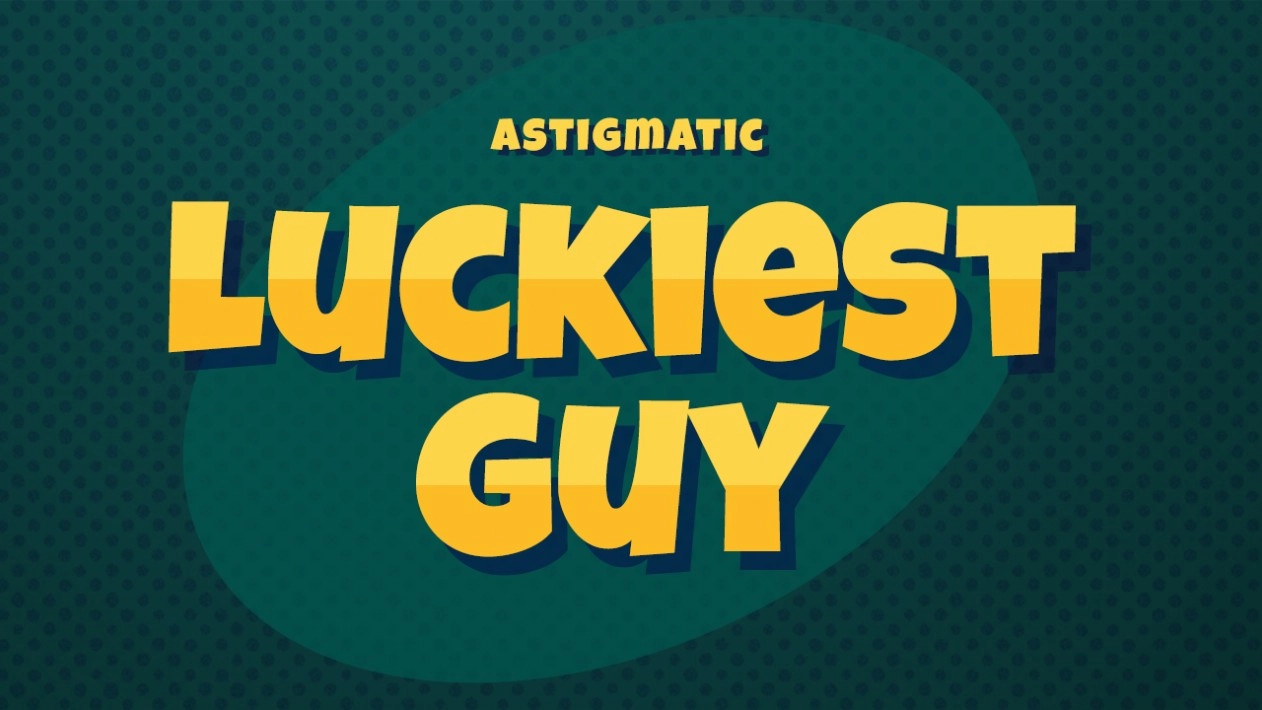
The 10 best gaming fonts
Whether you're developing your own indie games or creating graphic or web design work around a gaming theme, the best game fonts can provide a quick and easy way to set the right tone.
Of course, if you simply want your text to be legible, there's no reason you can't use a normal font like Helvetica (or one of these free fonts to get you started). But if you're trying to convey a specific look, whether that be retro arcade or sleek and futuristic, a more stylised typeface can elevate your project's visual appeal and enhance its overall atmosphere.
To help you get started, we've rounded up the 10 best game fonts, each of which can bring its unique character to your work. Some major in legibility (they must have followed our guide to kerning), while some are more about evoking a particular atmosphere, but all of these fonts work well in both game-themes designs and games themselves.
1. Russo One
Designed by Jovanny Lemonad, Russo One is a bold and stylish sans-serif that's nicely legible and exudes modernity and strength. Its clean lines and sturdy structure make it an excellent choice for game logos, menu titles, and in-game headers.
This font's versatility enables it to fit seamlessly into various gaming genres, from action-packed shooters to strategy games. Developers working on games with a contemporary or futuristic setting will find Russo One particularly appealing, as it conveys a sense of technological advancement and sleek design.
More generally, Russo One's readability at different sizes ensures that it performs well both in-game and in promotional materials. Plus its support for multiple languages, including Cyrillic, makes it ideal for games and game-related designs with international releases.
02. Posterama
Created by Linotype, Jim Ford's Posterama is a quirky-looking typeface family that's suitable for a wide range of gaming projects, from retro-inspired indie games to AAA titles with complex narratives.
With its 63 fonts spanning nine distinct families, Posterama provides designers and game developers with a wealth of options to create unique visual identities. Posterama's different variants, such as Posterama 1984 and Posterama 2001, can be used to evoke specific time periods or aesthetic styles within games.
With all that in mind, this font family is particularly valuable for developers working on games with multiple timelines or those seeking to create a strong, cohesive visual brand across different game elements and marketing materials.
03. Consolas
Designed by Luc(as) de Groot for Microsoft, Consolas is a monospaced font that has become a favourite among developers and gamers alike. Its clean, readable design makes it an excellent choice for in-game text, especially in games that involve coding elements or terminal-style interfaces.
Consolas particularly shines in strategy games, simulation titles, and any other game that requires players to read large amounts of text. And the font's support for various OpenType layout features enhances its versatility, allowing for creative use in user interfaces and game menus.
Developers working on games with a technical or scientific theme will find Consolas especially fitting, too, as it conveys a sense of precision and clarity.
04. Droid Sans
Created by Steve Matteson of Ascender Corporation, Droid Sans is a humanist sans-serif typeface originally designed for the Android mobile platform. And this optimised readability on small screens makes it an obvious choice for mobile game developers.
The font's neutral yet friendly appearance allows it to adapt to various game genres, from casual puzzle games to more complex RPGs.
Droid Sans' open forms and upright stress contribute to its legibility, making it ideal for in-game dialogue, menu items, and user interface elements. Developers focusing on cross-platform games, meanswhile, will appreciate Droid Sans' versatility and its ability to maintain consistency across different devices and screen sizes.
05. Luckiest Guy
Designed by Astigmatic, Luckiest Guy is a bold, playful font that captures the spirit of 1950s advertisements. And while that might seem a world away from the spirit of modern videogames, its heavyweight sans-serif design makes it perfect for casual games with a retro or lighthearted theme.
Luckiest Guy's bouncy, energetic character lends itself esepcially well to casual games, platformers, and titles aimed at younger audiences. And its strong visual impact makes it an excellent choice for game logos, level titles, and promotional materials.
Developers working on games with a nostalgic or Americana-inspired aesthetic will find this font particularly fitting, as it evokes a sense of mid-century optimism and fun.
06. Contrail One
- Download Contrail One from Font Download
Designed by Riccardo De Franceschi, Contrail One is a sans-serif font inspired by UK posters from the jet age. Its slight slant and bouncy quality give it a dynamic, forward-moving feel that's perfect for racing games, flight simulators, or any title with a sense of speed and excitement.
The rounded corners add a friendly touch, making it suitable for a wide range of game genres. Contrail One's low contrast design ensures readability at various sizes, making it ideal for both in-game text and marketing materials.
Developers working on games set in the mid-20th century or those aiming to capture a sense of adventure and progress will find Contrail One a worthy font to consider for their projects.
07. Enter Command
- Price: Free for personal or commercial projects (attribution required)
- Download Enter Command from Font End Dev
Designed by Font End Dev, Enter Command is a square sans-serif font that pays homage to the early days of graphic adventures.
Its pixelated aesthetic makes it perfect for retro-style games, text adventures, or any title looking to evoke nostalgia for the early era of computer gaming. The font's multiple styles offer flexibility for different in-game uses, from dialogue to user interfaces.
Enter Command is particularly well-suited for indie developers working on games that celebrate or reimagine classic gaming experiences. Its distinctive look can help create an immediate connection with players who have fond memories of early computer games.
08. VT323
- Download VT323 from Font Download
VT323, created by Peter Hull, is a font that replicates the look of text from the DEC VT320, a computer terminal from the 1980s, which was used for interacting with minicomputers and mainframes. This monospaced font is ideal for games that feature hacking elements, sci-fi themes, or retro-futuristic aesthetics.
Its crisp, pixelated appearance makes it perfect for creating authentic-looking computer terminal interfaces within games. VT323 is particularly well-suited for cyberpunk-themed games, puzzle games involving code-breaking, or any title that wants to evoke the feel of early computing.
Developers working on games with a strong emphasis on technology or those set in dystopian futures could find VT323 useful for creating immersive, period-appropriate text elements.
09. Press Start 2P
- Download Press Start from Font Space
Designed by codeman38, Press Start 2P is a bitmap font based on the typefaces used in 1980s Namco arcade games.
This font is perfect for retro-style games, particularly those inspired by classic 8-bit and 16-bit titles. Its pixelated design makes it ideal for creating authentic-looking title screens, menu items, and in-game text for games that aim to capture the essence of the golden age of arcade gaming.
Press Start 2P's wide character set, including Greek and Cyrillic support, makes it versatile for international releases. Developers working on retro-inspired platformers, shoot 'em ups, or any game looking to tap into gaming nostalgia could make good use of Press Start 2P in their projects.
10. Eightbit Atari
- Download Eightbit Atari from Atari Fonts
Mark Simonson's Eightbit Atari is a collection of fonts based on the original bitmaps from Atari 8-Bit computers, a series of home computers released by Atari, Inc. in the late 1970s and early 1980s. This font family is thus perfect for games that want to recreate the look and feel of classic Atari titles, or just more generally pay homage to the early days of home computing.
With multiple weights and styles, Eightbit Atari offers flexibility for different in-game uses, from menu text to dialogue boxes. The font's authentic pixelated appearance makes it ideal for retro-style games, particularly those set in the 1980s or inspired by the aesthetic of that era.
Anyone working on projects that celebrate gaming history or aim to create a strong nostalgic connection with players will find Eightbit Atari a useful go-to.